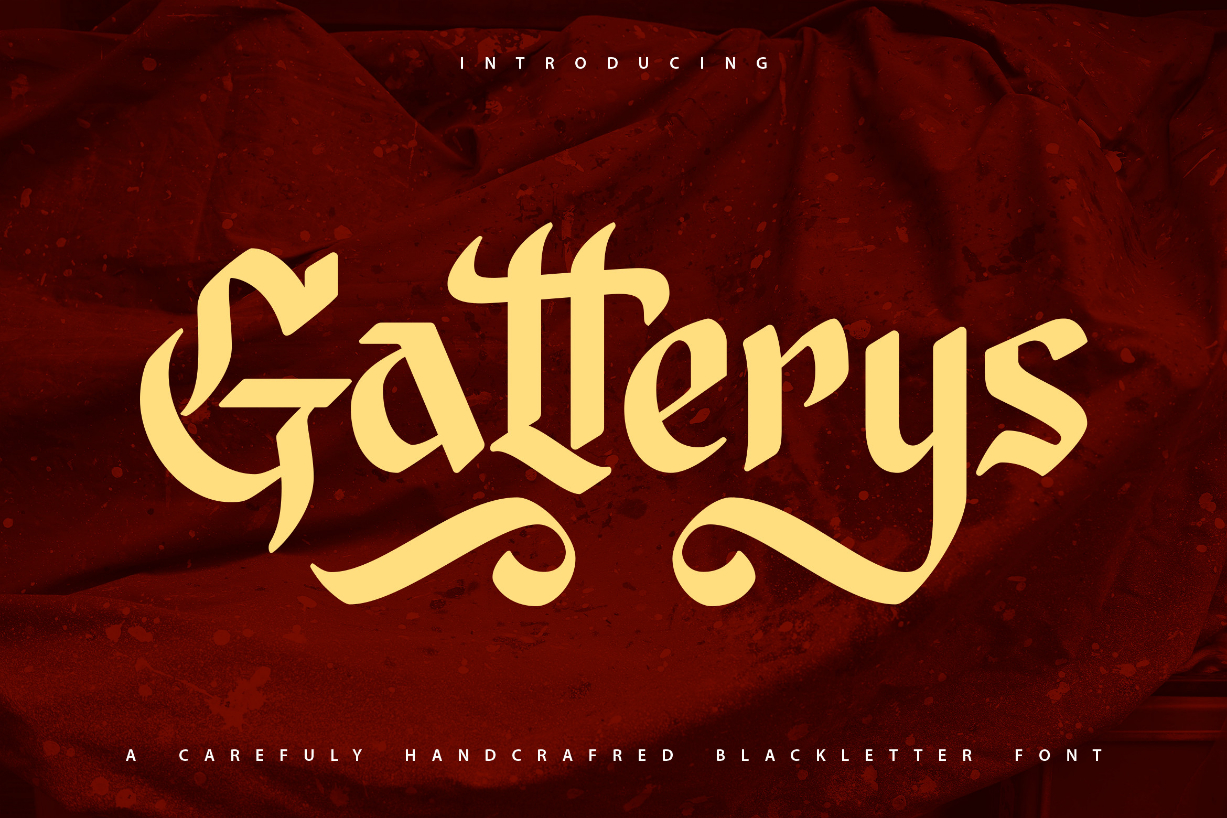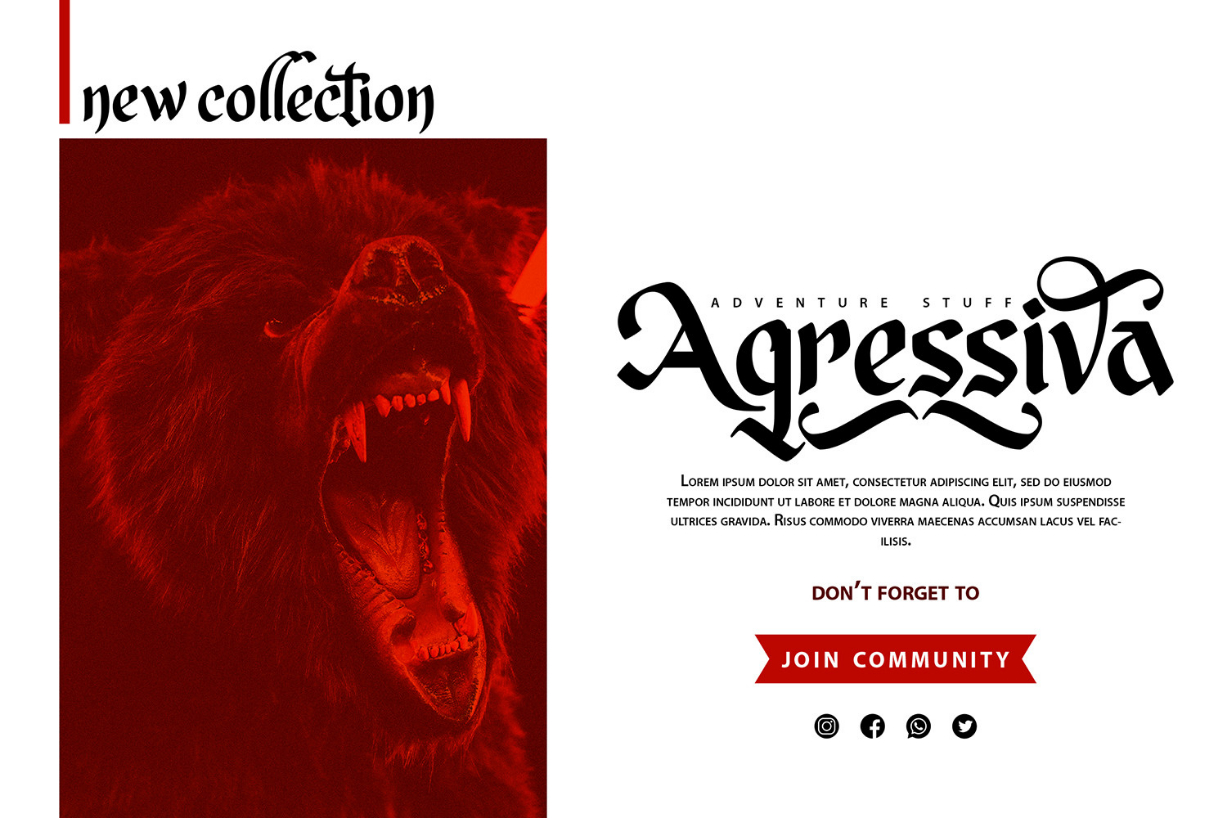
About Gatterys Font
Gatterys is a distinct and elegant blackletter font. This font reads as strong, confident, and dynamic and can add tons of nostalgic character to your designs.